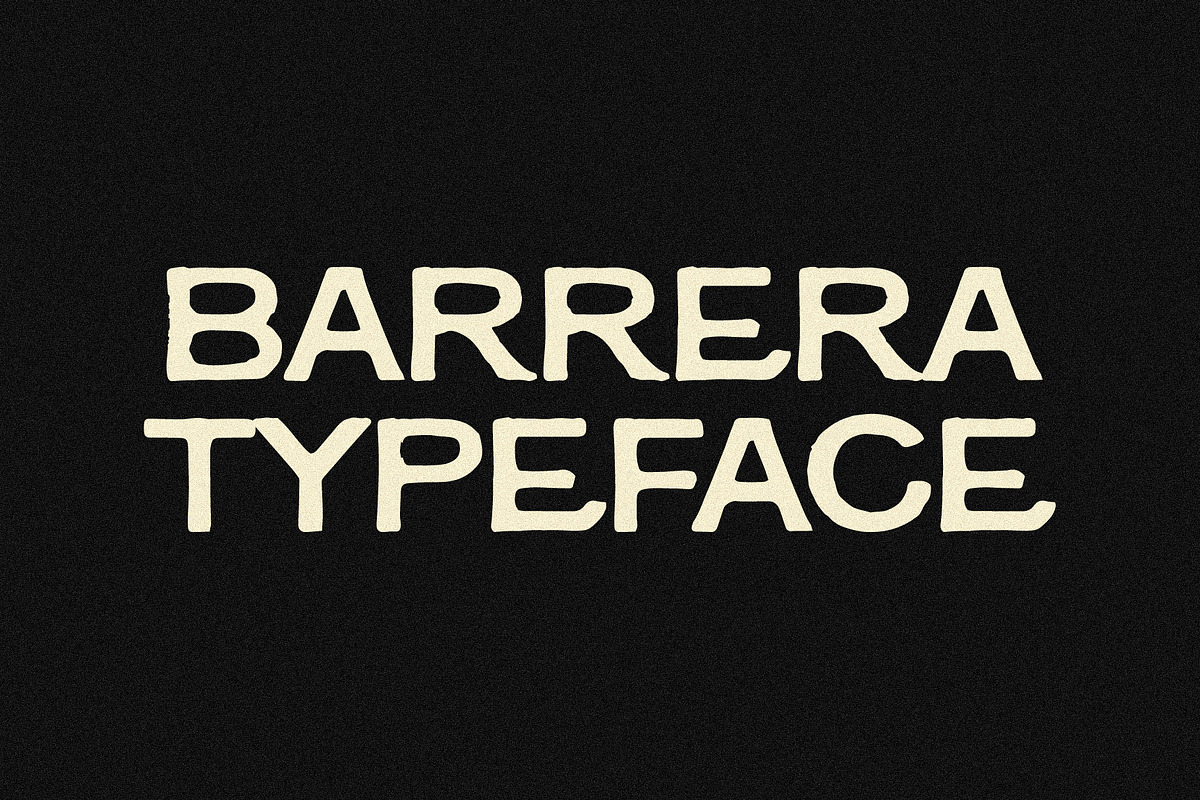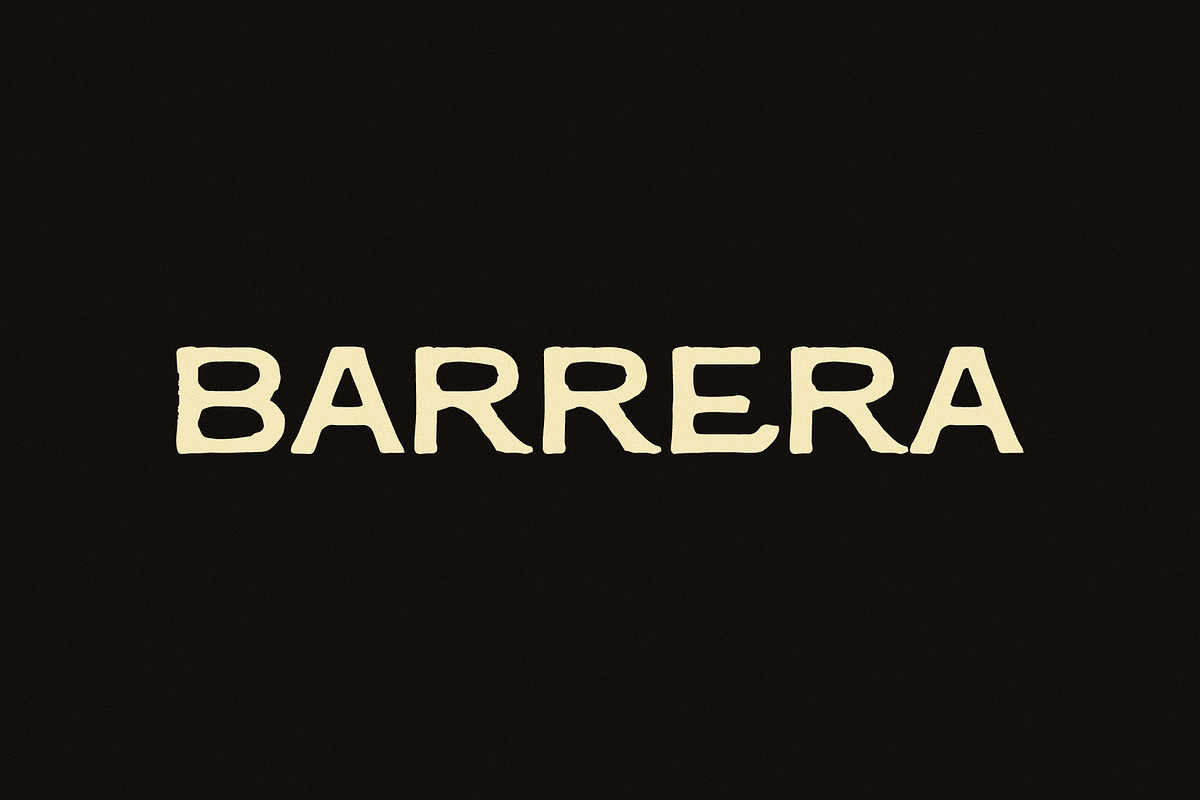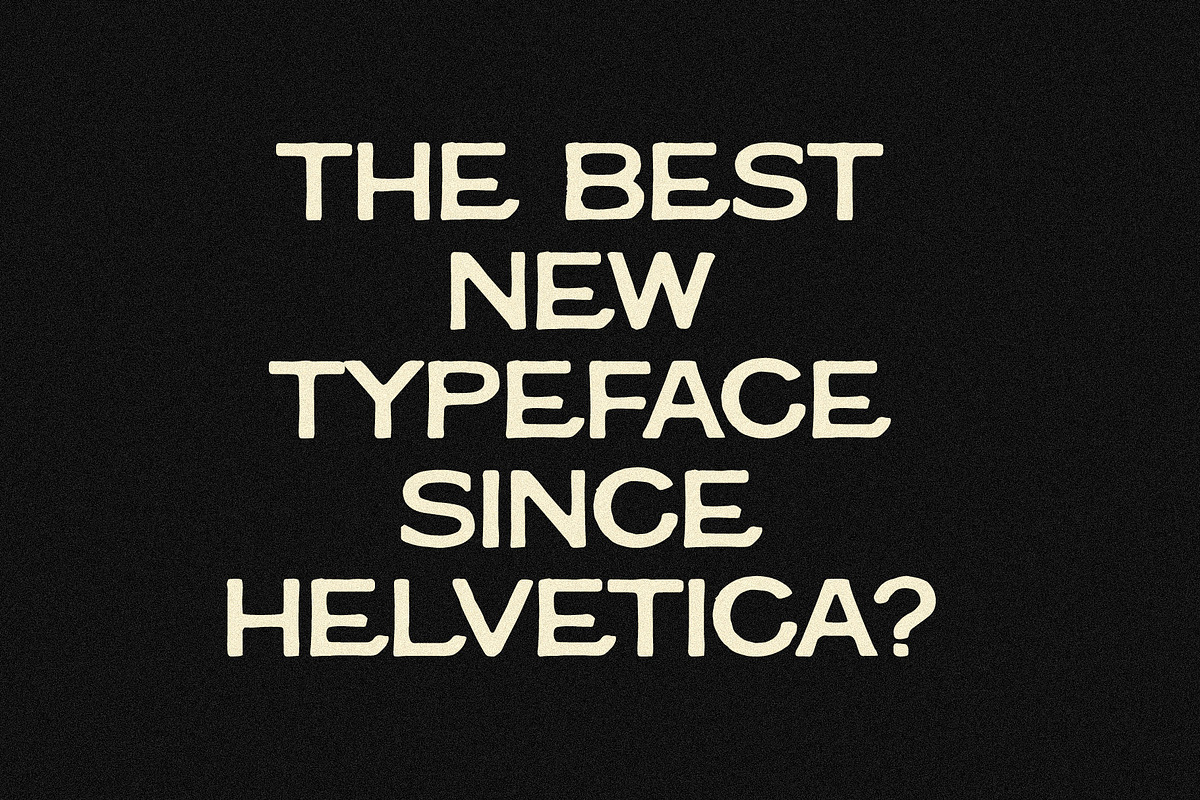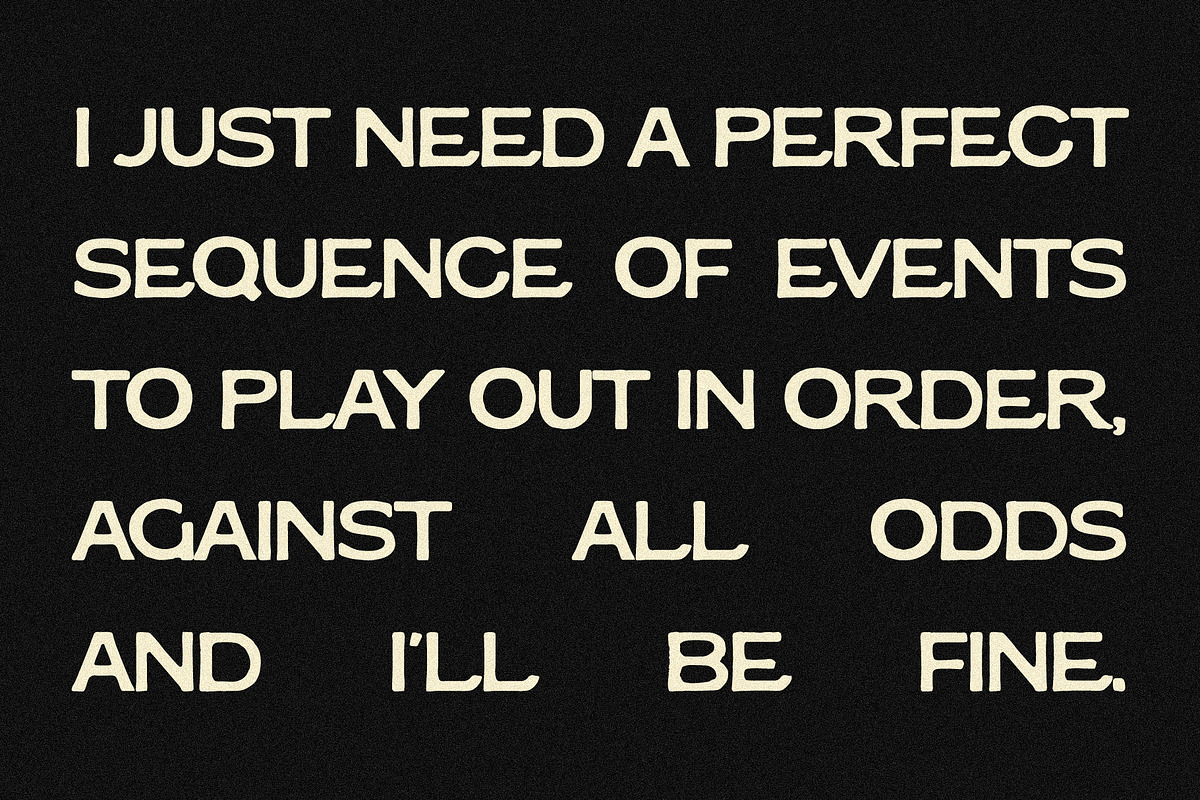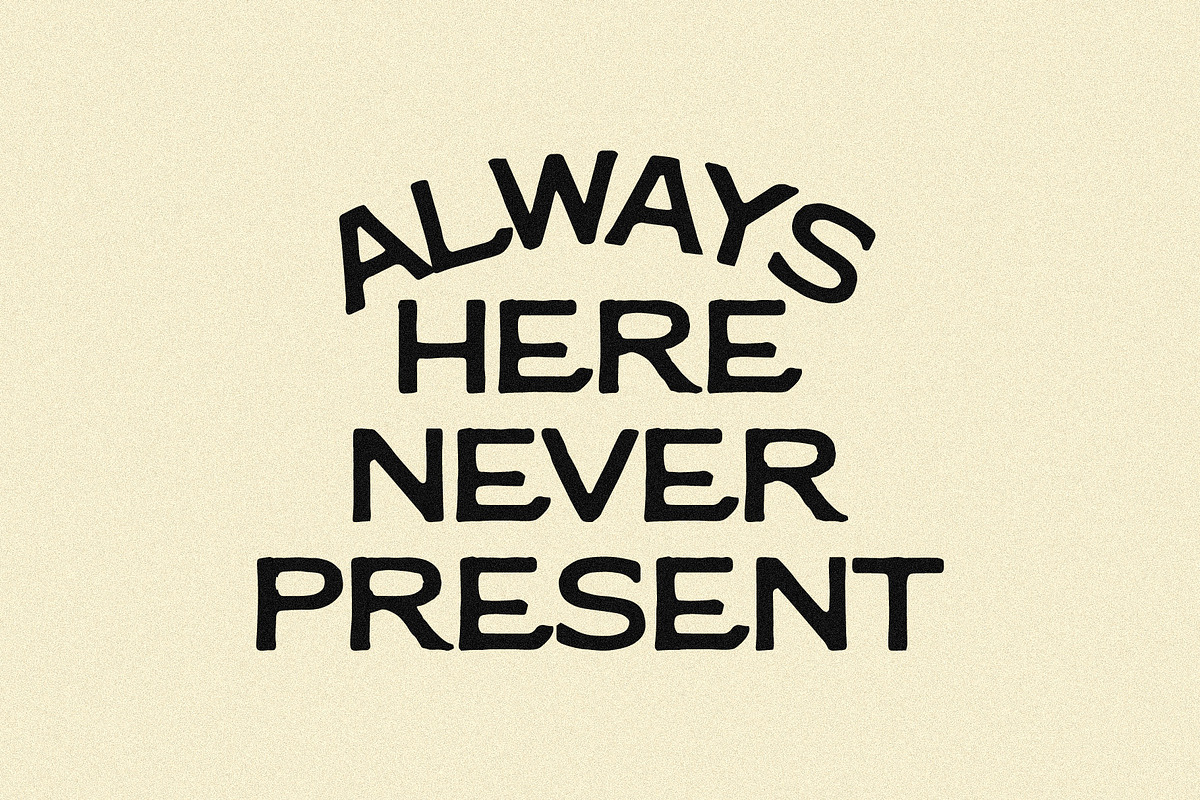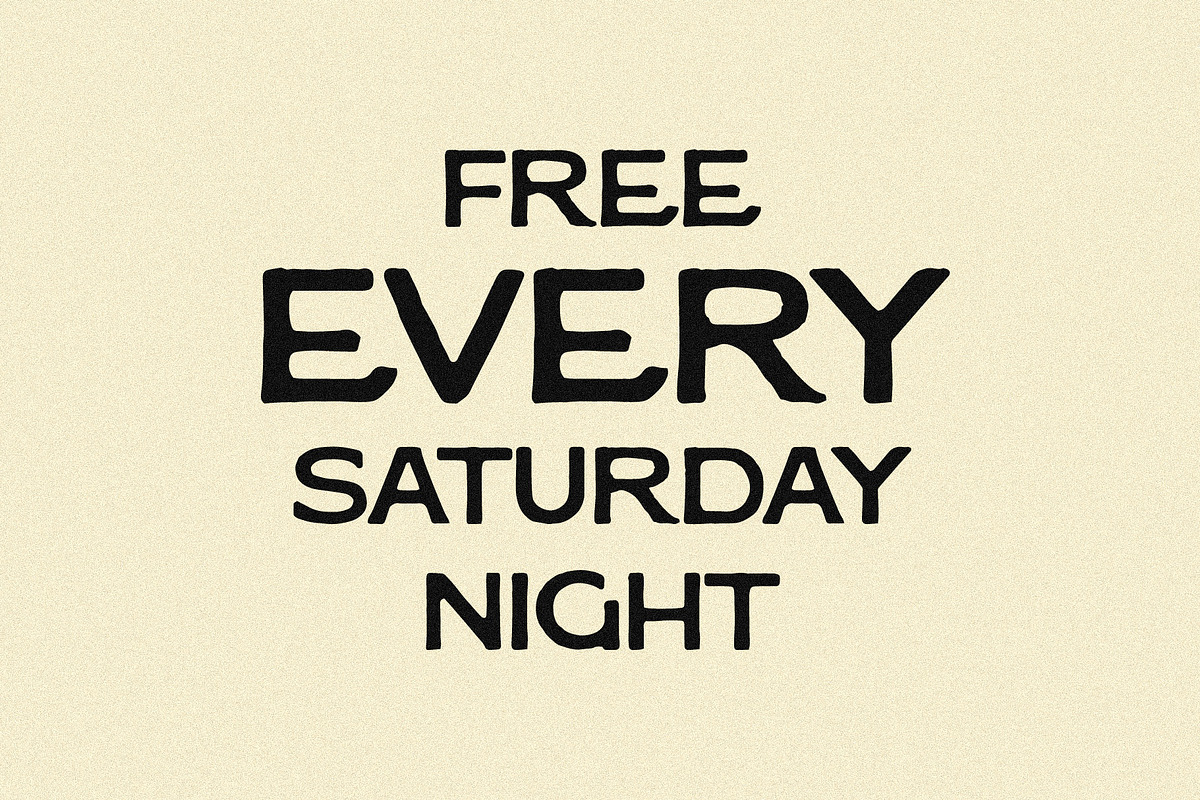
Barrera Typeface
Barrera doesn’t try to steal the show — but it’s still worth looking at.
Hand-drawn in Maui, it’s a display font with quiet presence: clean shapes, natural irregularities, and a balance that works almost anywhere you need a little personality without a lot of drama.